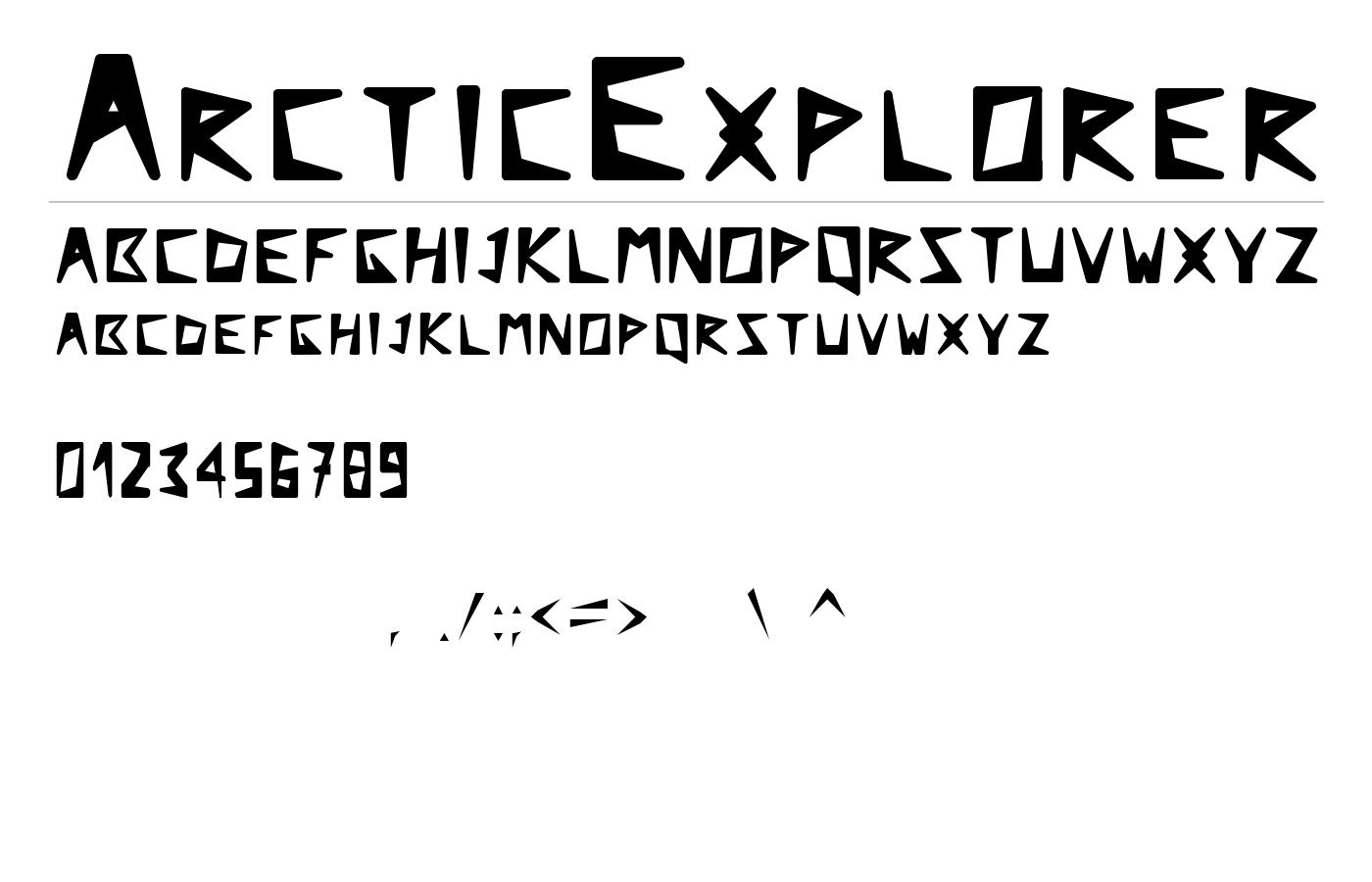
ArcticExplorer is a bold, sans serif display font with a playful and angular design that evokes a sense of adventure and exploration. Its irregular, sharp-edged letterforms and high x-height give it a dynamic, youthful energy, making it ideal for creative projects, outdoor branding, posters, and logos that aim to capture an adventurous spirit with a modern, edgy twist.
ArcticExplorer Font
About ArcticExplorer Font